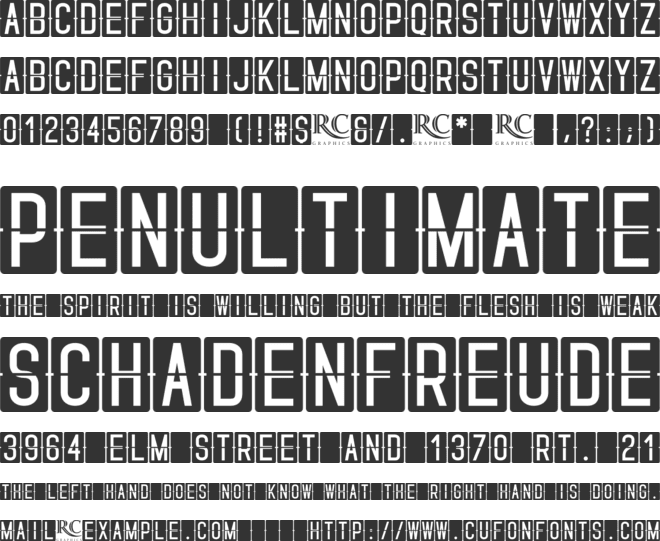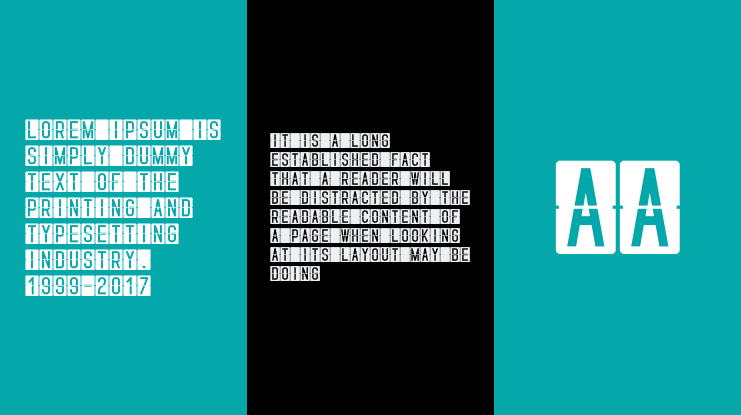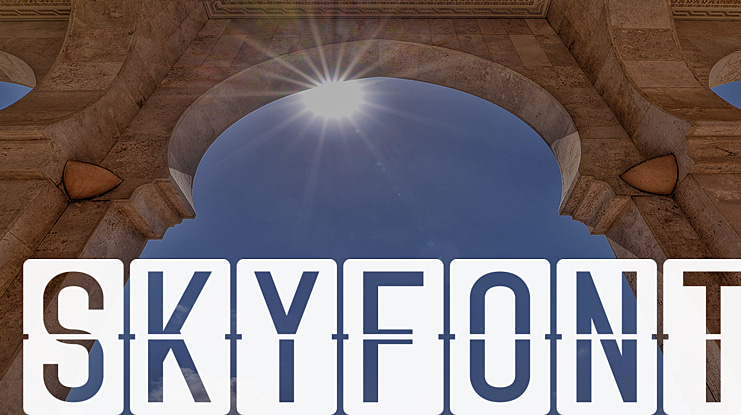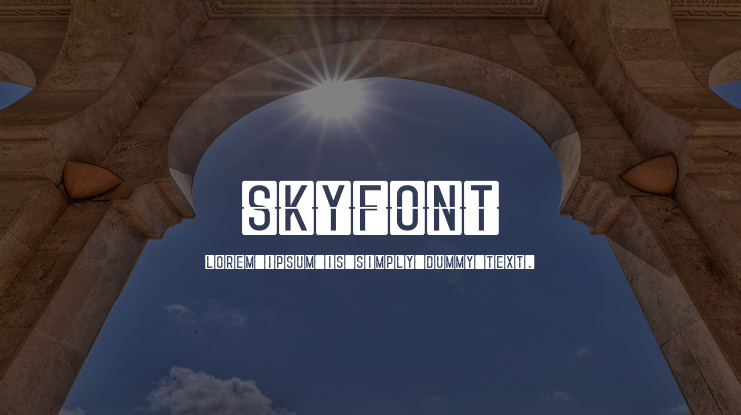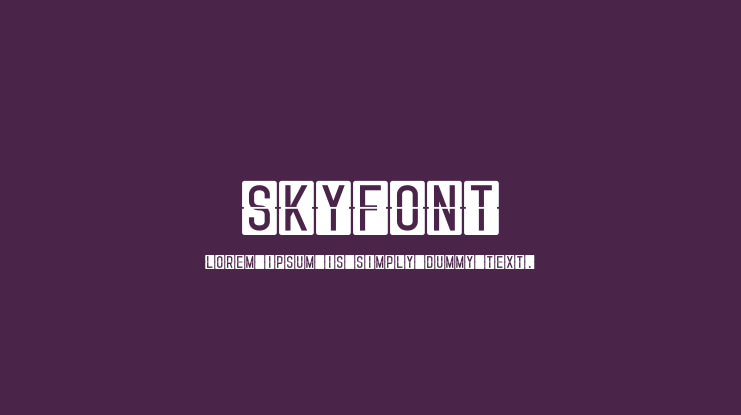
Skyfont Font
Introducing Skyfont - Sans Serif Font
Skyfont is a strong and clean sans serif font. It's a versatile font family designed for strong, classic branding. Skyfont works great in any branding, logos, magazines, videos, product packaging, website headers, clothing designs and much more.